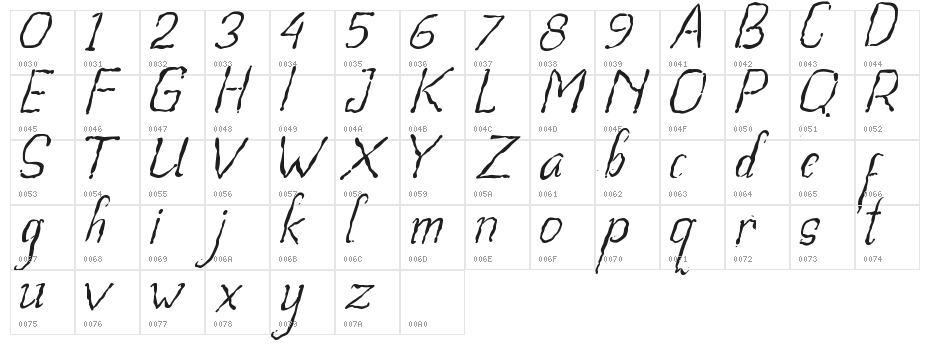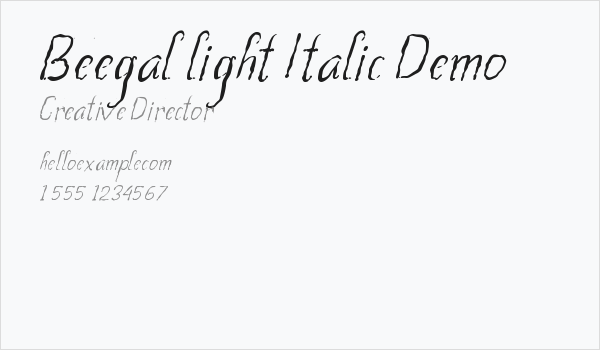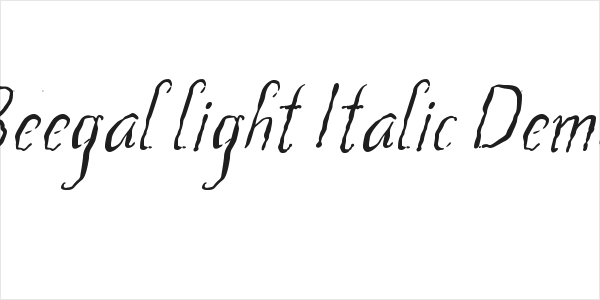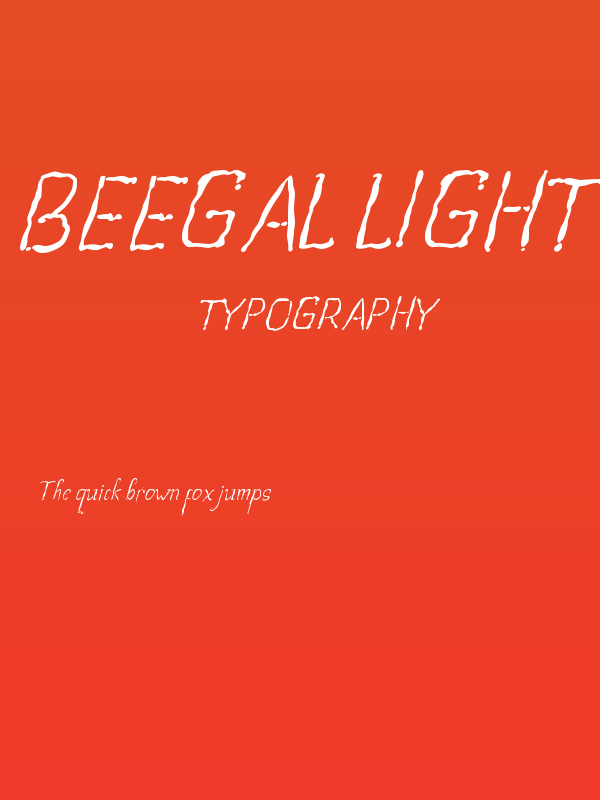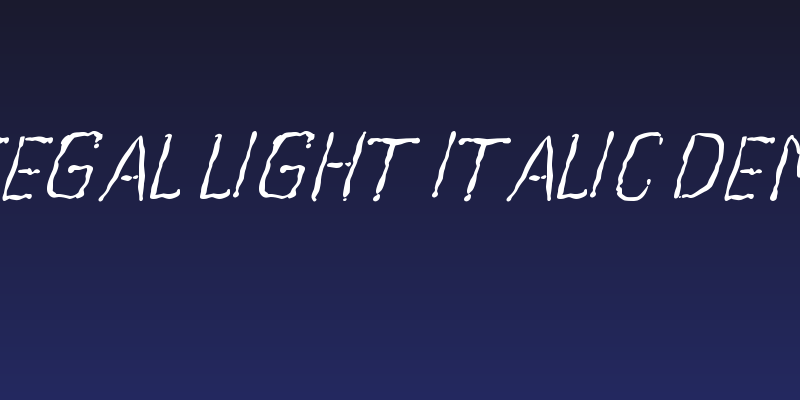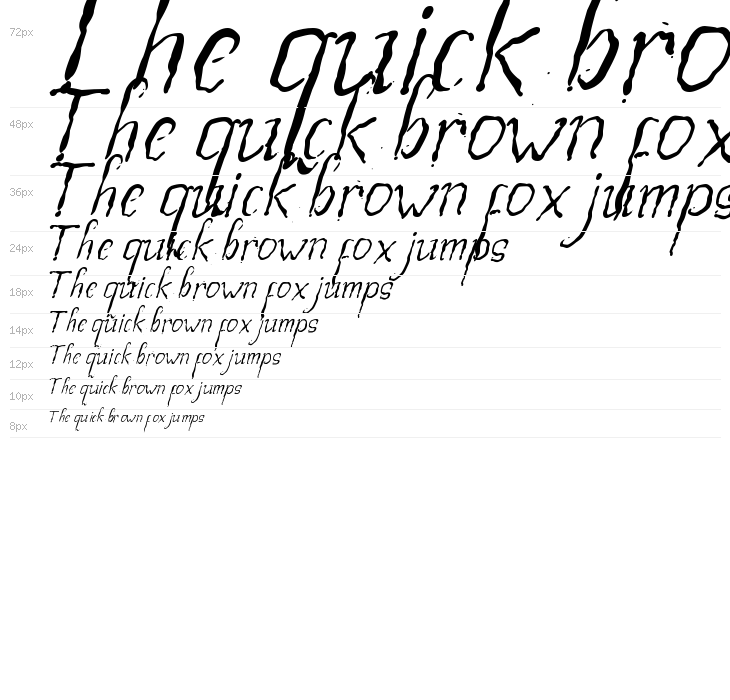
Beegal light Italic Demo Font
Beegal light Italic Demo Description
This font features a distinctive handwritten style with an elegant, flowing appearance. The characters are slightly slanted, emphasizing its italic nature. Each letter is crafted with a unique, organic feel, reminiscent of ink on paper. The strokes vary in thickness, adding a dynamic and lively touch to the text. The uppercase and lowercase letters maintain a consistent style, while the numerals and special characters blend seamlessly into the overall design. This font exudes a sense of creativity and personal expression, making it ideal for projects that require a personal or artistic touch.
| Overall Style | Artistic |
| Proposed Projects | Ideal for greeting cards, invitations, personal branding, and artistic projects. |